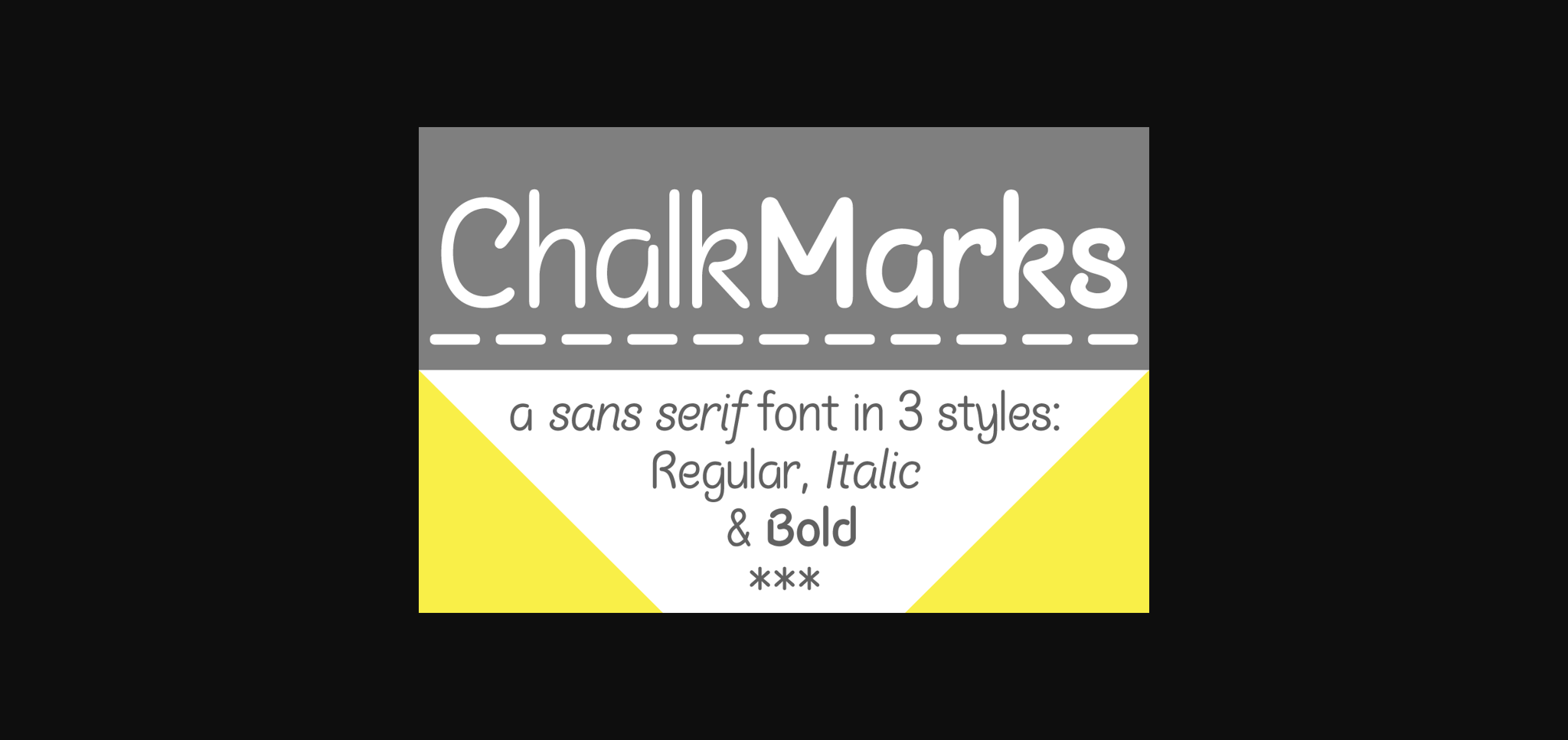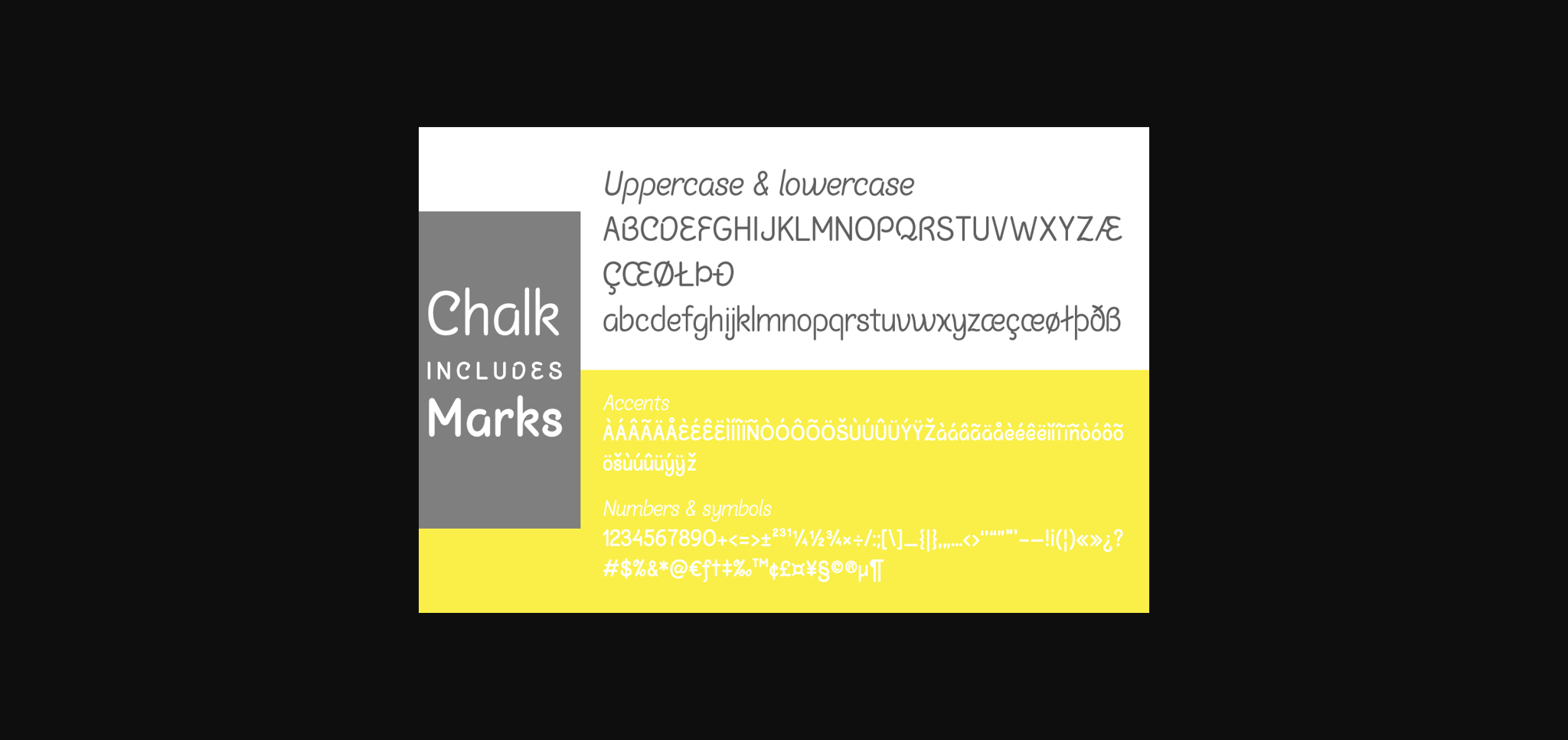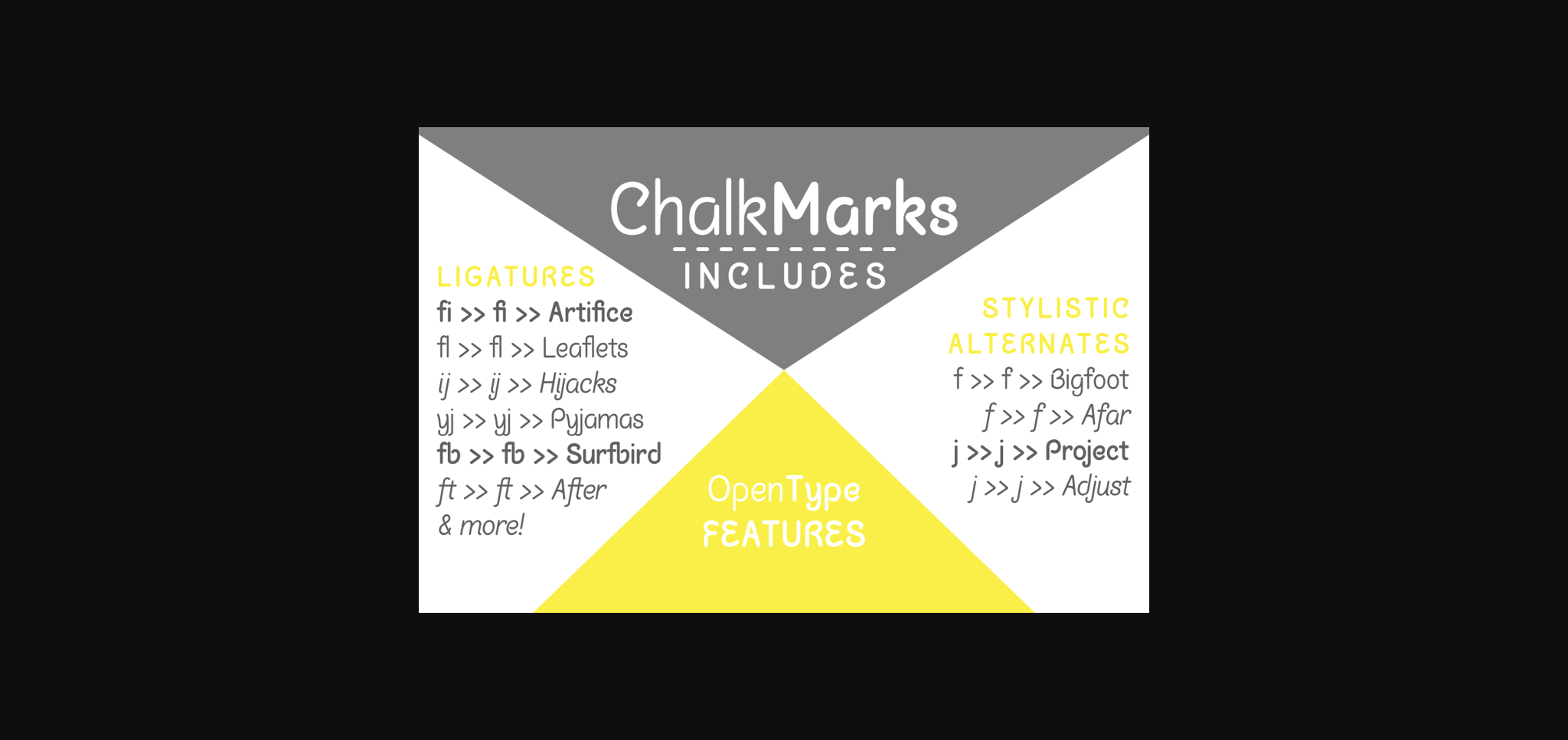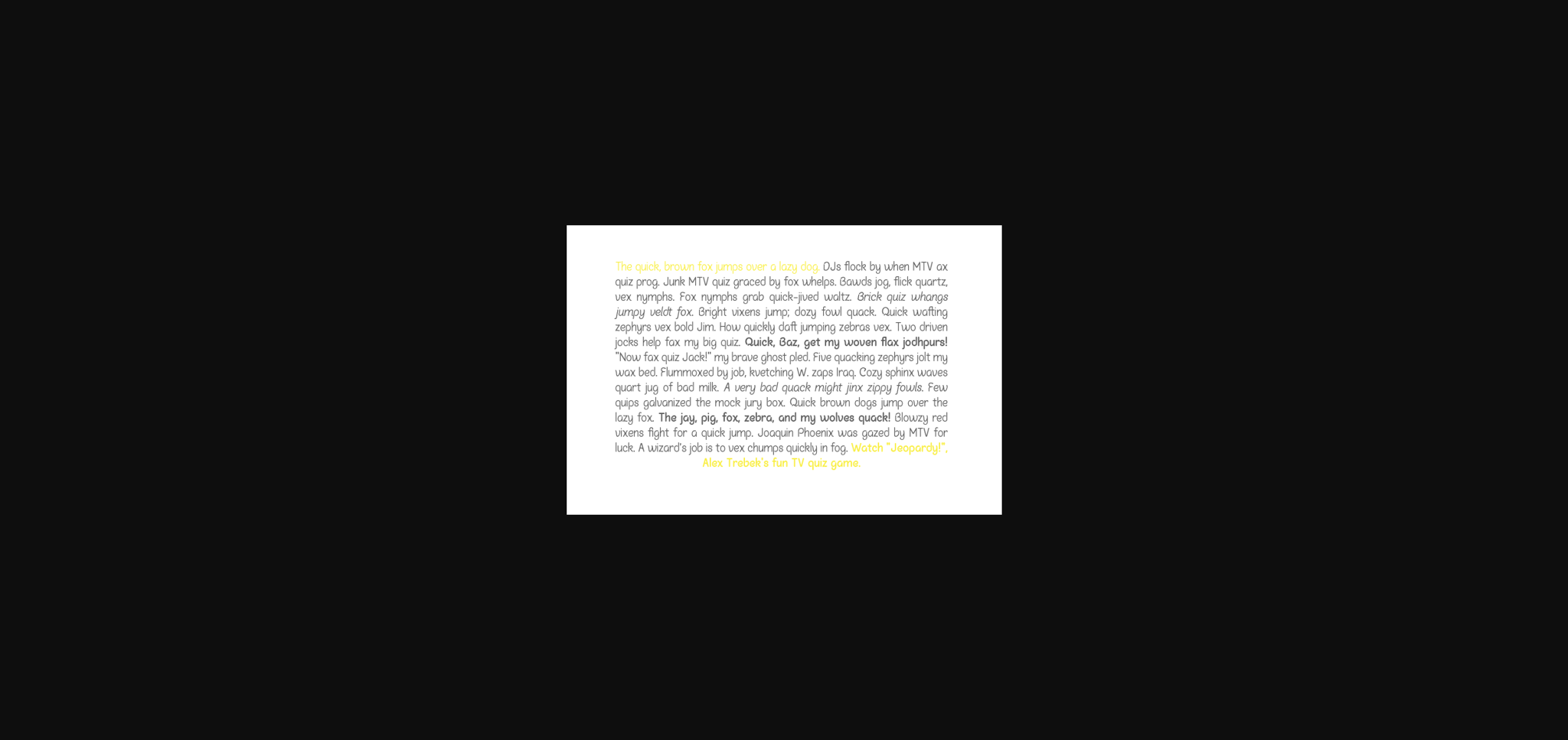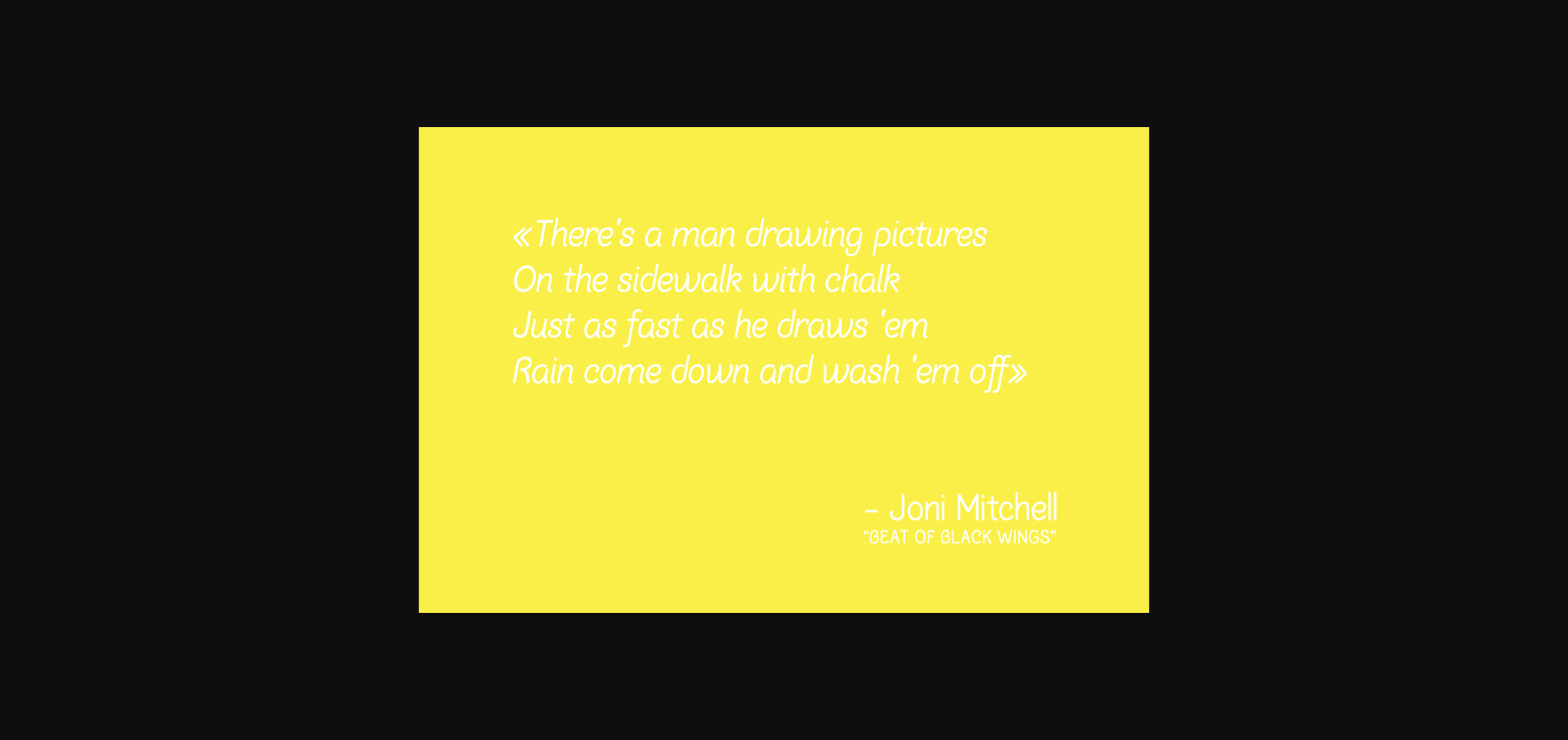
HomeSans Serif FontsChalk Marks Font Sans Serif Fonts Chalk Marks Font FacebookXPinterestWhatsApp 1 of 7 ... Chalk Marks Font Poster 2... Chalk Marks Font Poster 3... Chalk Marks Font Poster 4... Chalk Marks Font Poster 5... Chalk Marks Font Poster 6... Chalk Marks Font Poster 7... About Chalk Marks Font Chalk Marks is a fun and natural sans serif font. Add it confidently to your projects and you will love the results! DOWNLOAD NOW People also explored Cute Devil Font Hottemp Duo Font Play Van Font Gasoline Sans BTN Anthasic Font Mezza Font Hopscotch Font Fortune Teller Coffee First Font 448 0 TagsChalk Marks Font Previous articleAllovely FontNext articleBenfham Shadow Font LEAVE A REPLY Cancel reply Comment: Please enter your comment! Name:* Please enter your name here Email:* You have entered an incorrect email address! Please enter your email address here Website: Save my name, email, and website in this browser for the next time I comment. Personal Use Free Sunflower Personal Use Free Read more about this font Bethania Personal Use Free Read more about this font Harshita Personal Use Free Read more about this font Playground Clip Art Personal Use Free Read more about this font BLOG To increase your work productivity, choose the most readable fonts. In today's fast-paced work environment, where digital communication and information consumption are integral to our daily routines, the choice of fonts can significantly impact... Top 10 Handwritten Fonts That Elevate Your Designs Free vs Paid Fonts: Why Investing in Premium Fonts Is Worth It The 10 Best Handwriting Fonts to Add Personality to Your Designs